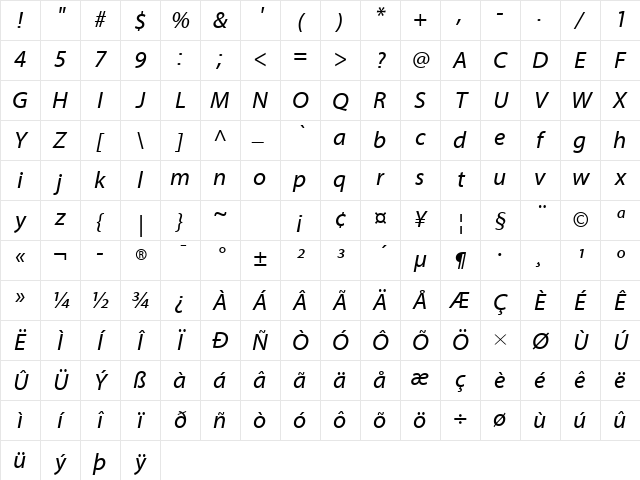
Myriad Web Pro Italic
Designer: Robert Slimbach and Carol Twombly
Design Context for Myriad Web Pro
Myriad Web Pro is a composed and adaptable typeface that performs quietly and consistently across a wide range of design contexts. The slanted form adds forward momentum and visual energy.